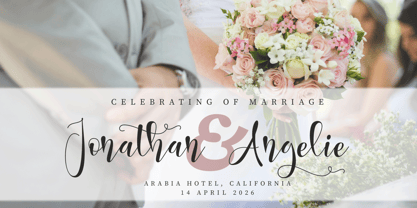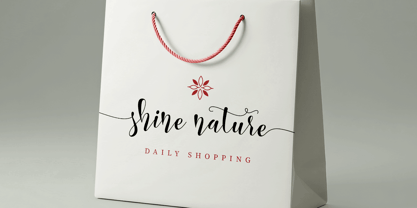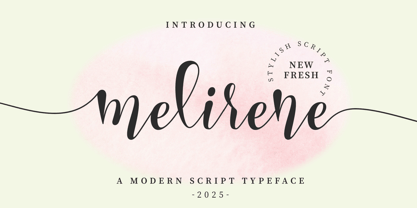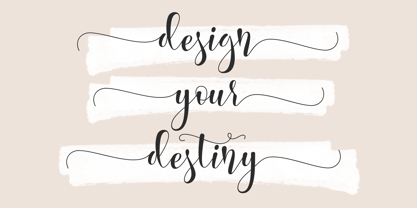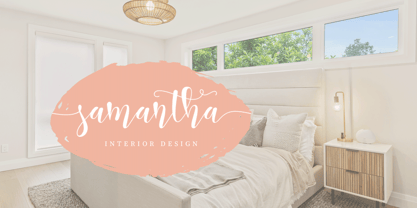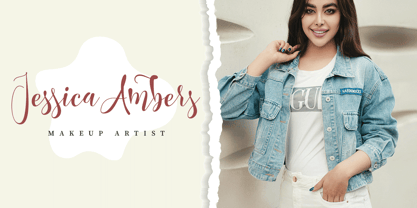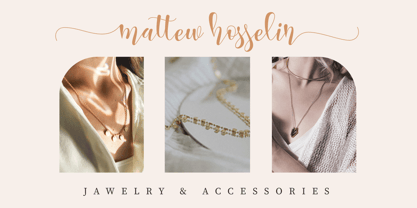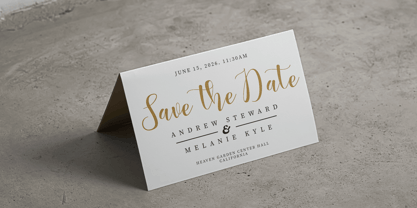
Melirene
by Trick Type Style
The Melirene Font Family was designed by Rizki Ramadhan and published by Trick Type Style. Melirene contains 1 styles. More about this family
Melirene is an exclusive typeface that perfectly blends timeless elegance with a contemporary twist. Its naturally flowing lines and character-filled curves create a sophisticated yet modern aesthetic. The unique design makes it versatile for various creative needs—from luxury branding and packaging design to exclusive promotional materials.
What sets Melirene apart is its impeccable balance—decorative enough to make a statement, yet highly functional for optimal readability. Every typographic detail is meticulously crafted, offering flexibility across different applications while maintaining its distinctive identity. This font is the ideal choice for designers seeking to create work with both personal flair and refined aesthetics.